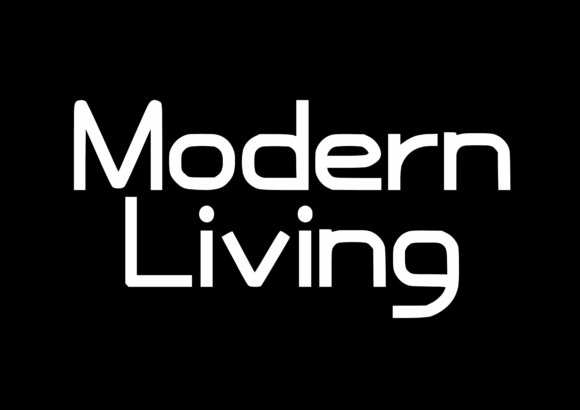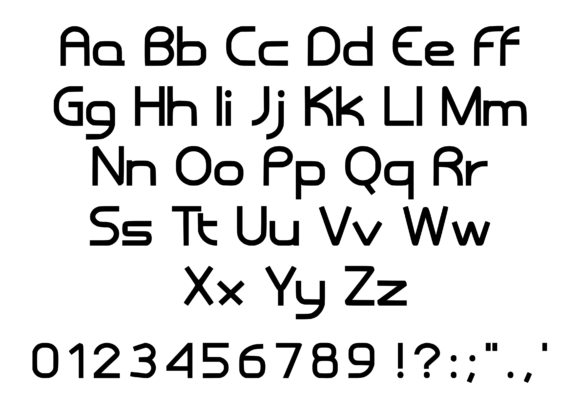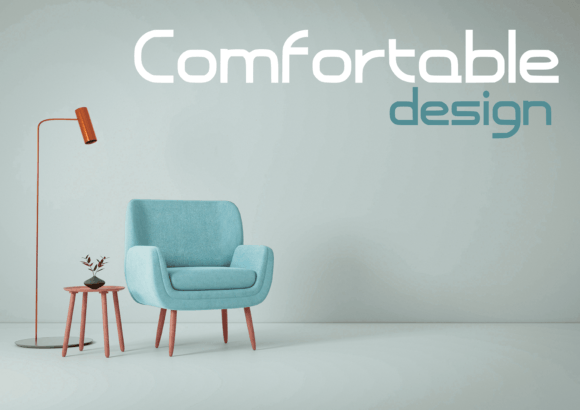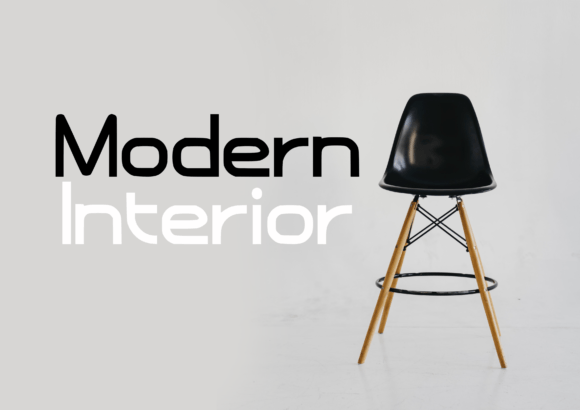
Introduction to Pioneer Font
Pioneer is made in minimalist theme, modern and clean style.
Pioneer is a sans serif inspired by modern life and can be used for branding, design projects, your business, posters, and other projects .
Key Features of Pioneer Font